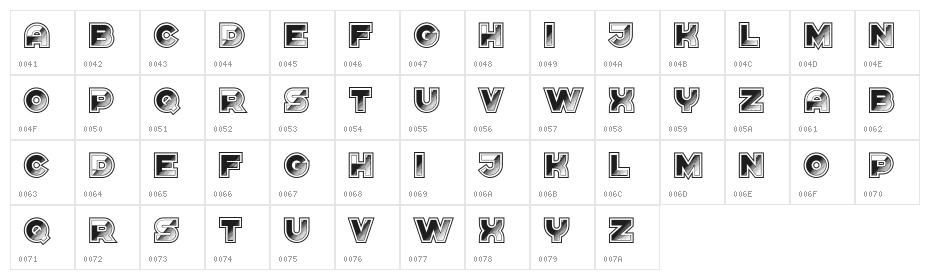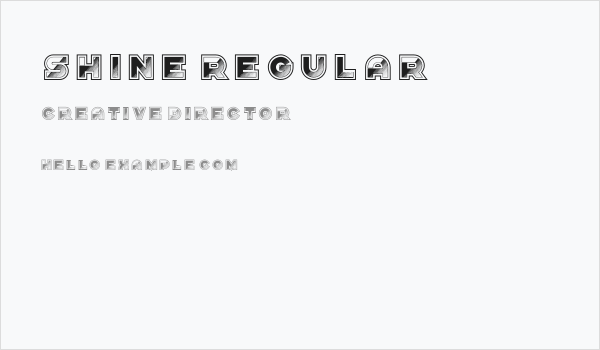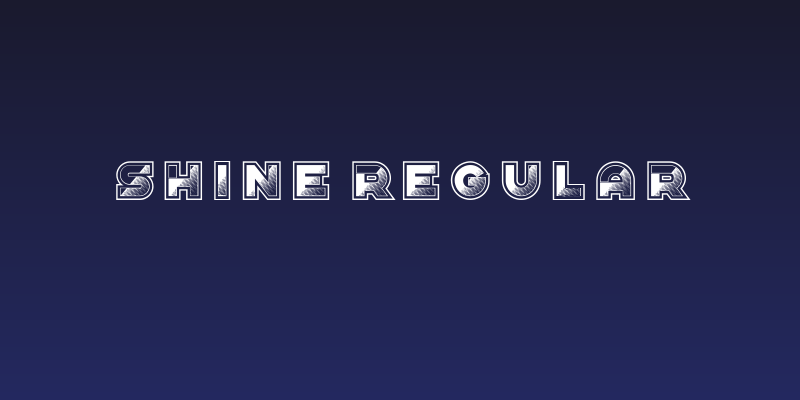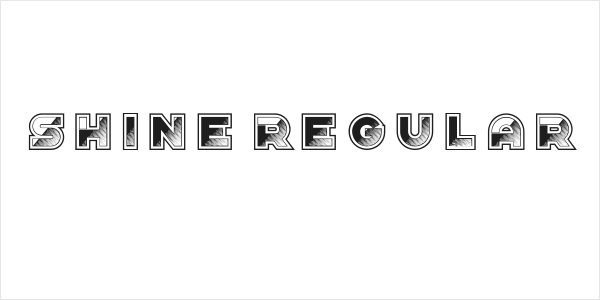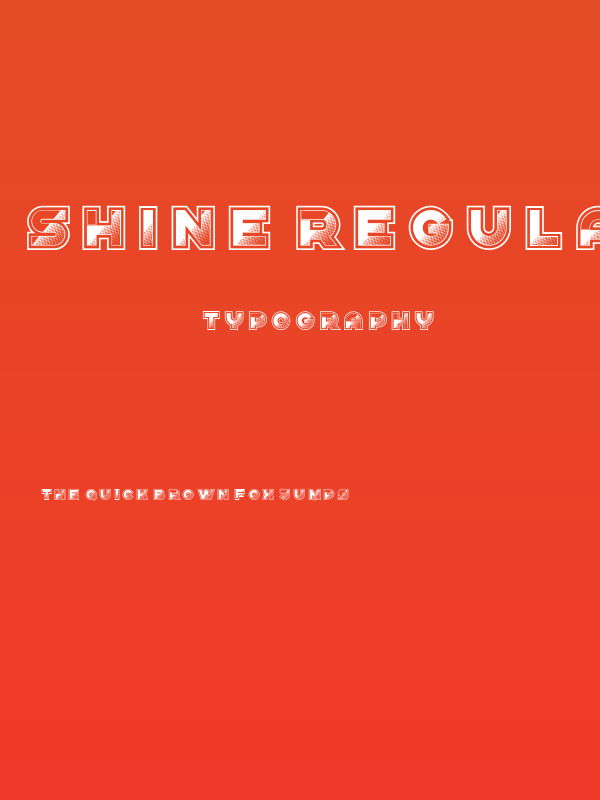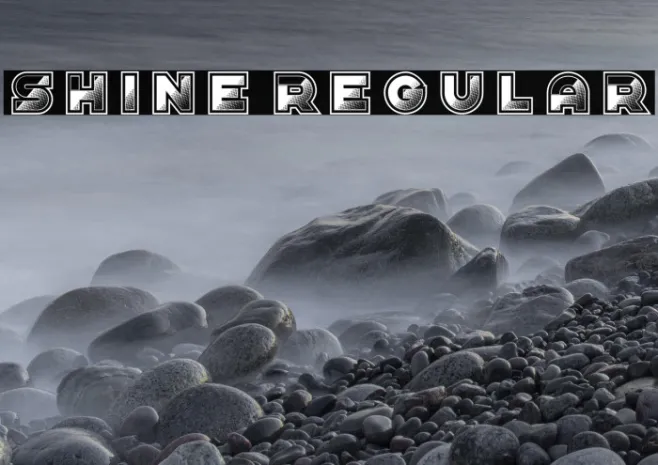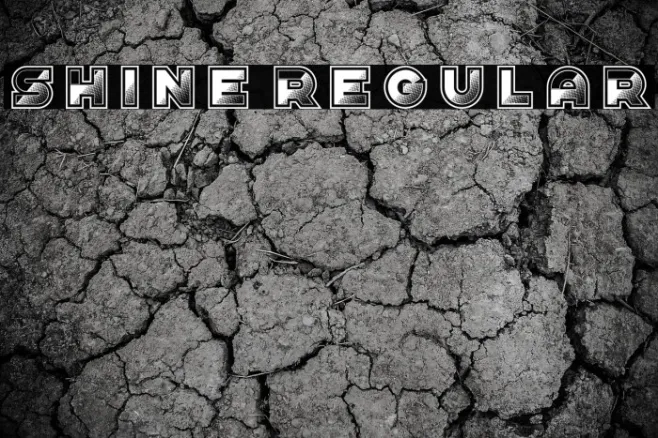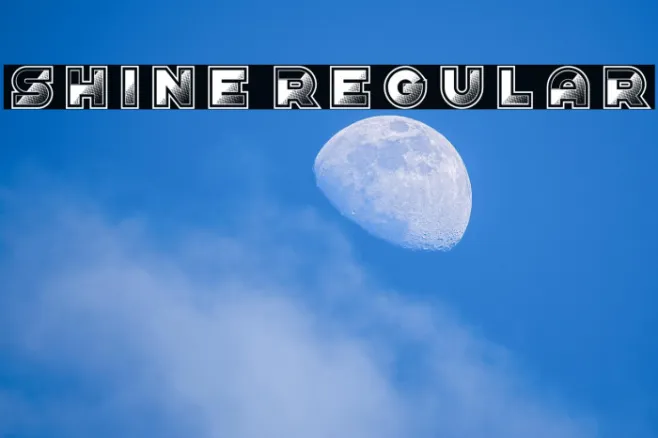
Shine Regular Font
Shine Regular Description
This font features a bold, decorative style with a unique, textured pattern inside each letter. The characters are outlined, giving them a three-dimensional appearance that adds depth and visual interest. The uppercase letters are particularly striking, with a consistent geometric structure that makes them stand out. The design incorporates a mix of solid and patterned areas, creating a dynamic and eye-catching effect. The font's playful yet structured aesthetic makes it suitable for creative projects that require a bold statement.
| Proposed Projects | Ideal for posters, logos, branding, and any project that requires a bold, artistic touch. |